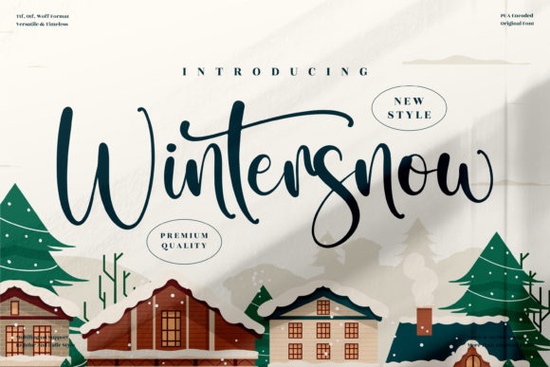
If you're looking for a flowing handwritten font that brings an elegant, timeless feel to your projects, Wintersnow Font is worth a closer look. It's the kind of typeface that works quietly in the background, making your design look polished without shouting for attention. Whether you're designing wedding invitations, branding materials, or social media graphics, this script font can add a personal, handcrafted touch.
What makes Wintersnow different from other script fonts?
Wintersnow is a flowing handwritten font with a distinctly elegant character. Unlike many script fonts that feel either too rigid or overly casual, this one strikes a nice balance. The strokes are smooth, the letterforms are well-proportioned, and the overall impression is one of refined simplicity.
How can you use Wintersnow Font in your projects?
This font works well in a variety of applications. Here are some ideas:
- Wedding invitations and save-the-dates – The flowing style pairs nicely with floral elements or minimalist layouts.
- Branding for boutique businesses – Think small cafes, handmade soap shops, or jewelry brands that want a personal feel.
- Social media quotes and overlays – Use it for Instagram posts or Pinterest pins that need a handwritten touch.
- Product packaging – If you're selling physical products, this font can add warmth to labels and tags.
- Greeting cards and stationery – Birthday cards, thank-you notes, and holiday greetings all benefit from a natural handwriting style.
What design styles does Wintersnow work best with?
Wintersnow shines in designs that lean toward the romantic, vintage, or minimalist. It doesn't feel overly modern or trendy, which is actually a strength. Because it has a timeless quality, it won't look dated in a few years.
It pairs well with serif fonts for a classic look, or with clean sans-serif fonts for a more contemporary contrast. If you're working on a project that needs both elegance and readability, this font delivers on both fronts.
Is Wintersnow Font suitable for commercial use?
How does Wintersnow compare to other handwritten fonts?
There are many handwriting fonts out there, but few combine elegance with readability as well as Wintersnow. Some script fonts are so ornate that they're hard to read in longer passages. Wintersnow avoids that problem. The letterforms are clear without losing their hand-drawn charm.
You can find Wintersnow Font on Creative Fabrica, along with many other high-quality script typefaces.
Practical tips for using Wintersnow Font in your designs
Here's a quick checklist to help you get the most out of this font:
- Pair it with a simple serif or sans-serif for body text to keep the focus on the headline or quote.
- Use it at larger sizes where the flowing strokes can really be appreciated.
- Avoid using it for long blocks of text – it works best for short phrases, titles, or names.
- Experiment with letter spacing to find the perfect balance for your layout.
- Test it on different backgrounds to see how the strokes interact with colors and textures.